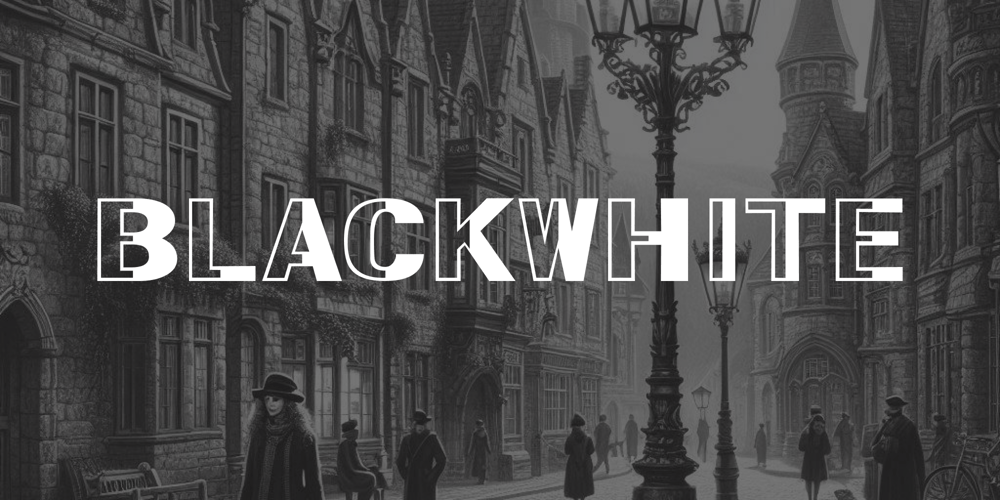
BlackWhite Font Family was designed by Irsad Waroid Musyaffa and published by Iwm Design. BlackWhite contains 1 styles and family package options. The “BlackWhite” font is a modern sans serif typeface with a unique design where each character is half dark (black) and half light (white). This design creates an elegant and dramatic contrast effect, making it perfect for headlines, logos, and various visual elements. Combining high readability with a creative appearance, “BlackWhite” is ideal for web design, posters, branding, and social media, adding an innovative and elegant touch to your projects.